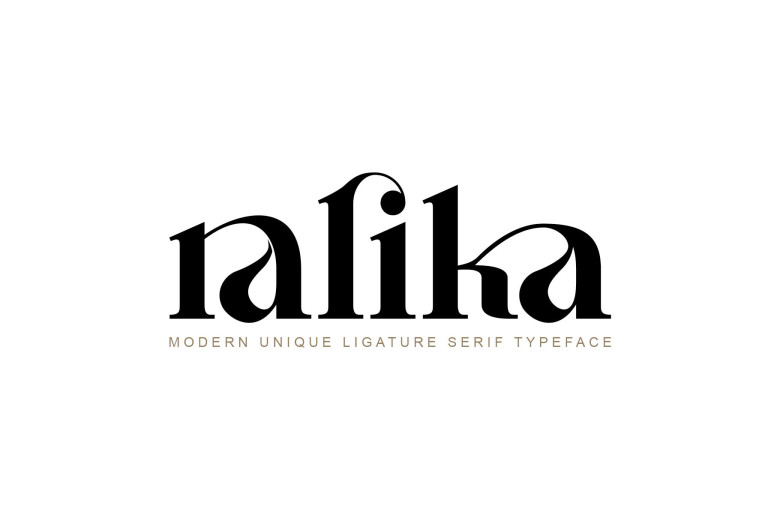
Ralika Font
Ralika Font This text is greate if you already paired and ready to be used together for your next design! For those of you who are needing a touch of elegant, stylish, classy, chic and modernity for your designs, this font was created foy you!
Ralika was built with OpenType features and includes ligatures, numbers, punctuation, and it also supports other languages.